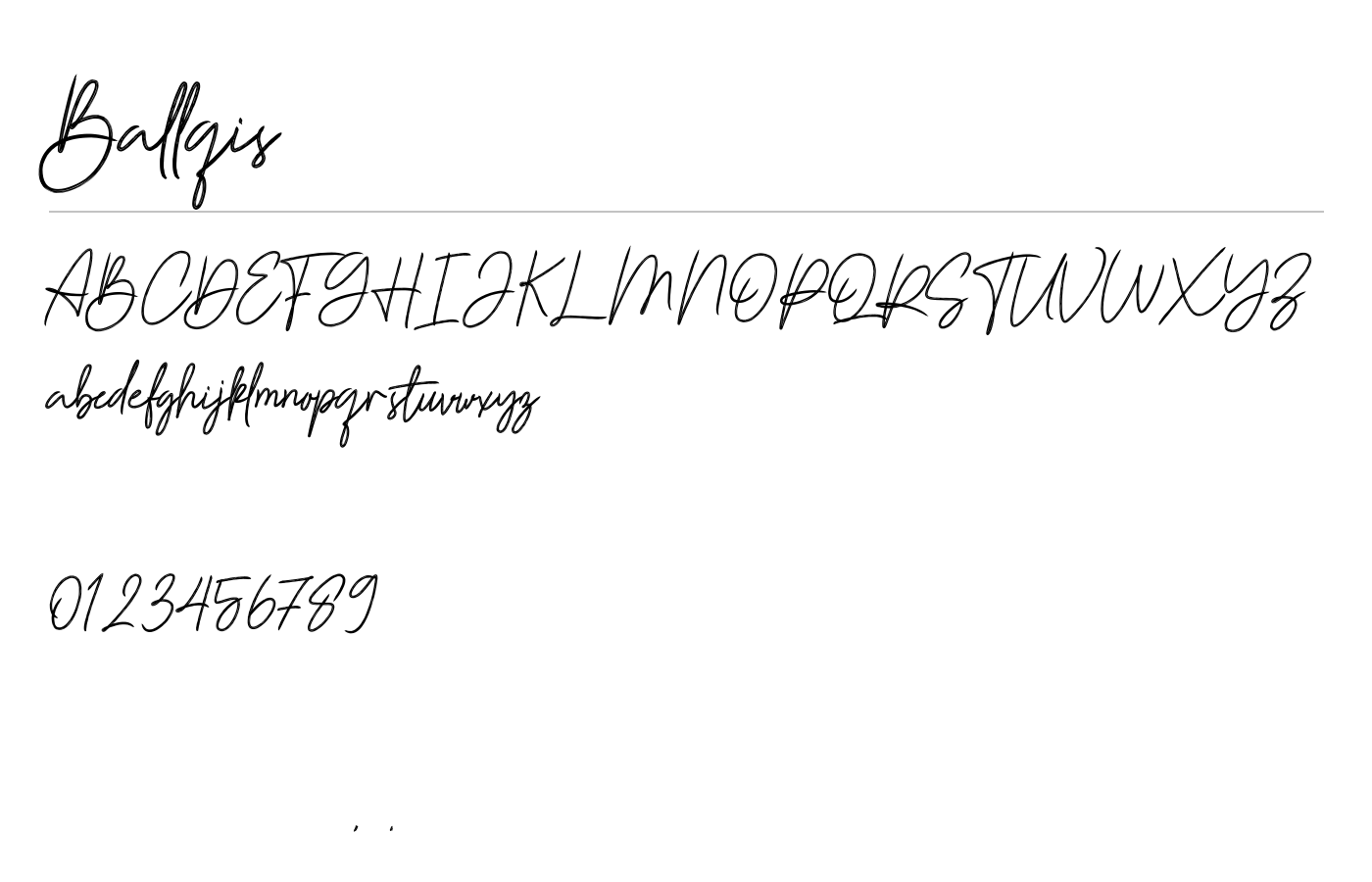
Ballqis is an elegant and delicate script font with a handcrafted, flowing style that mimics natural handwriting. Its slender strokes and smooth curves give it a refined yet approachable feel, making it perfect for personal branding, invitations, and fashion or beauty-related projects that seek a touch of sophistication and charm.
Ballqis Font
About Ballqis Font
| Font family | Ballqis Font |
| Designer | Iqbal Pauji |